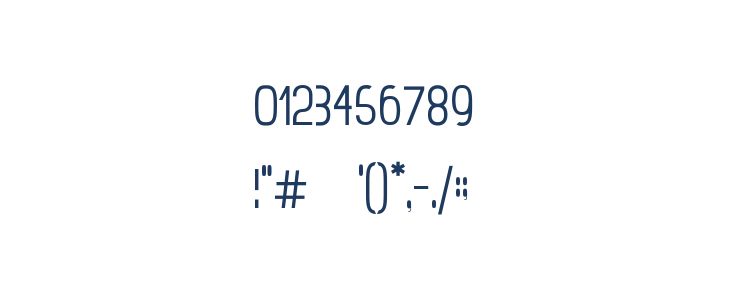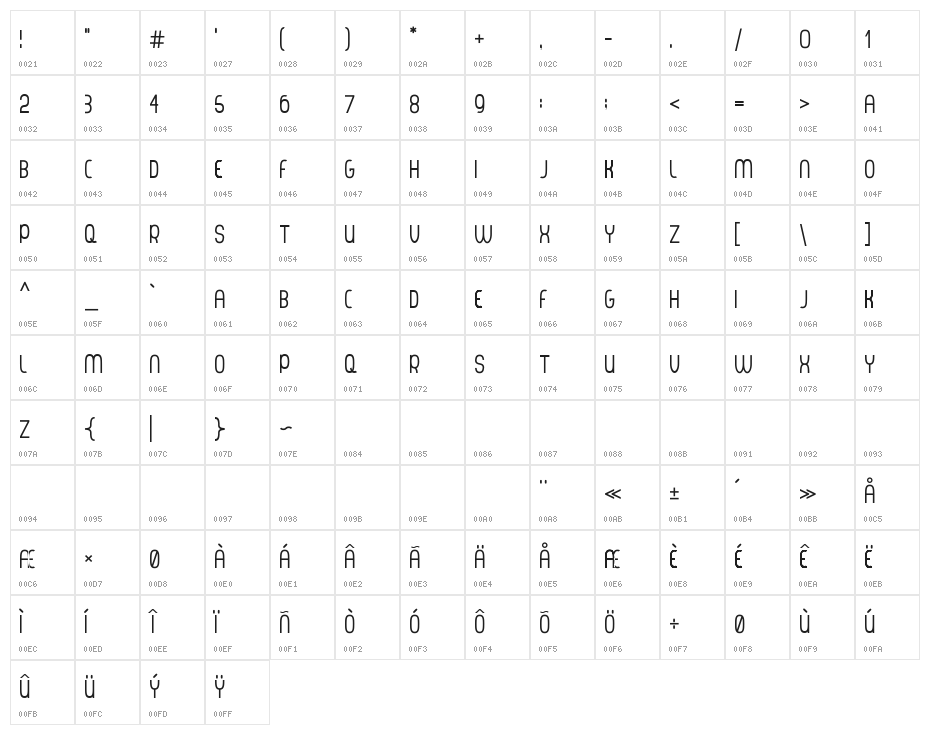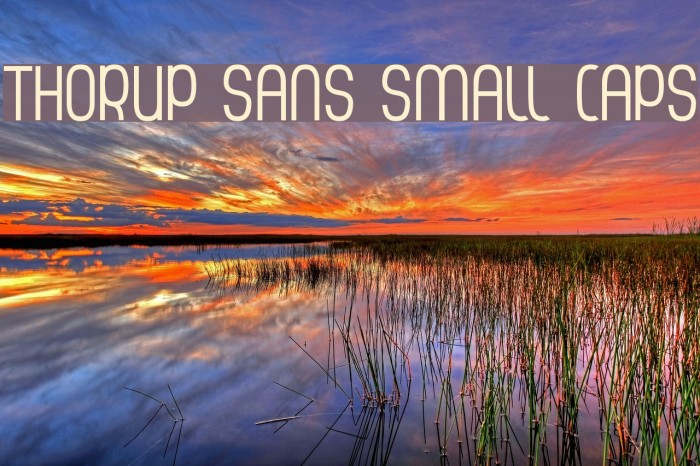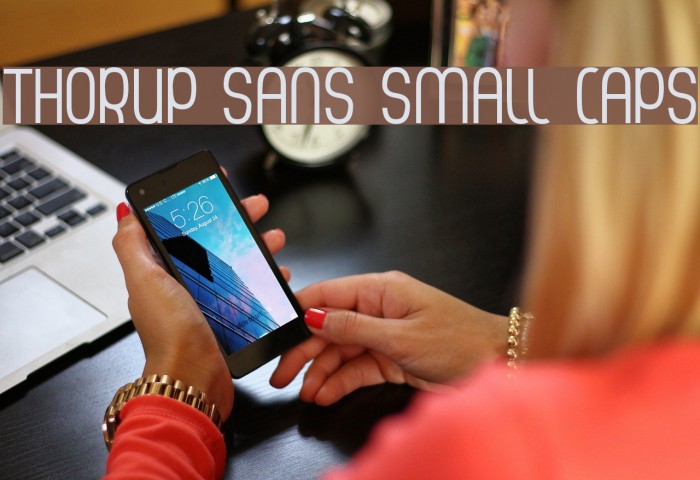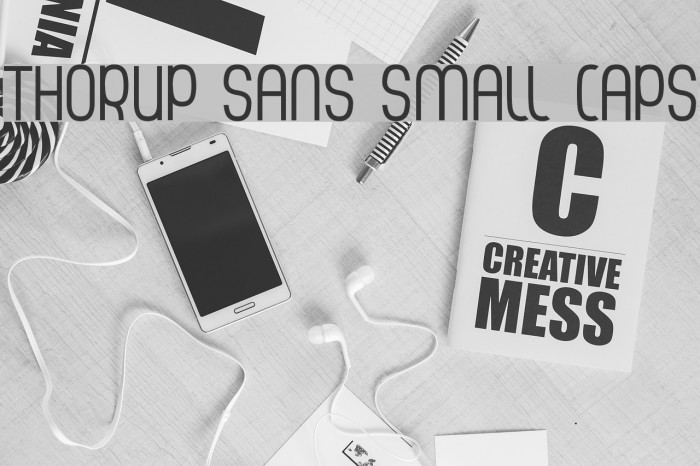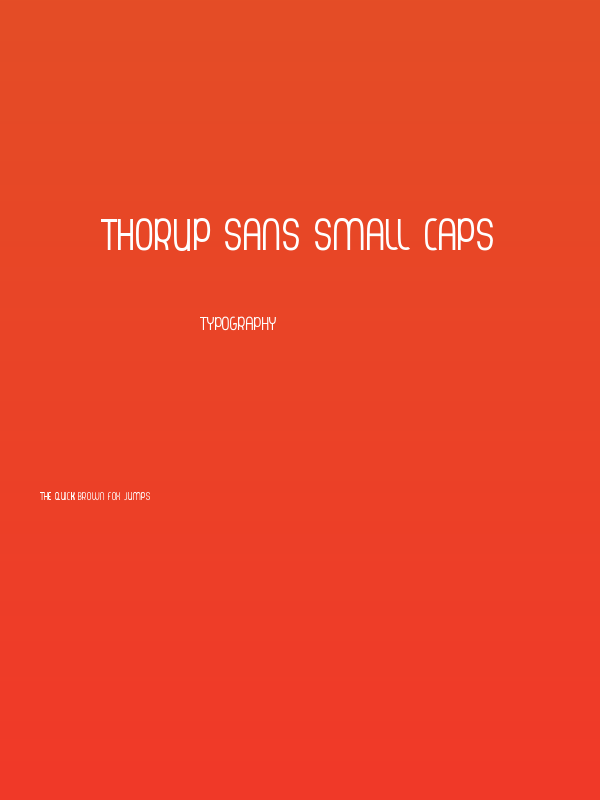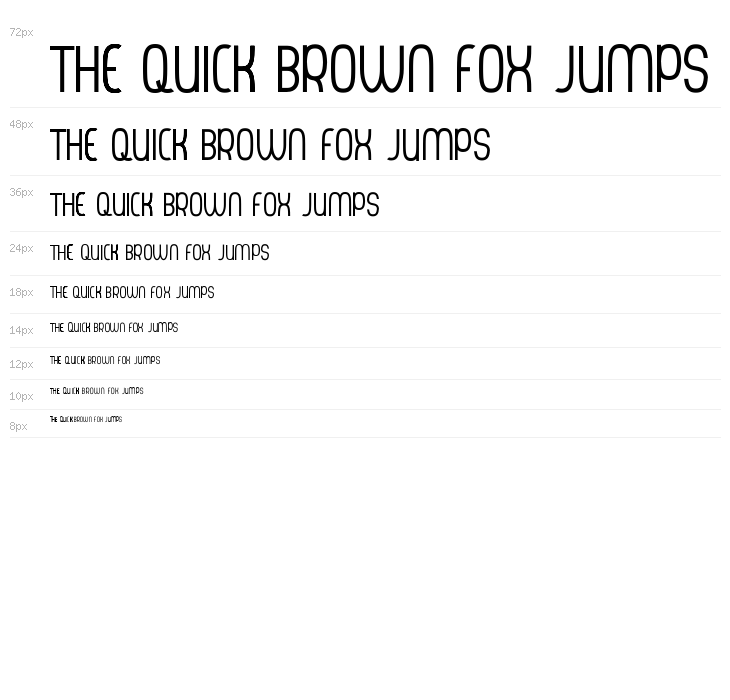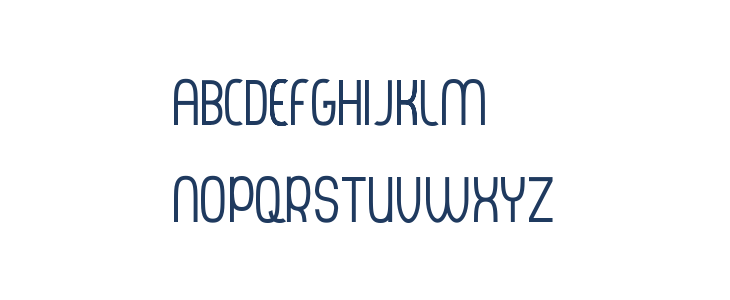
Thorup Sans Small Caps Font
Thorup Sans Small Caps Description
This font features a clean and modern sans-serif style with a focus on readability and simplicity. The characters are uniformly structured, with a consistent stroke width that gives a balanced and harmonious appearance. The uppercase and lowercase letters are designed with a similar height, creating a cohesive look across the text. The numerals are clear and easy to distinguish, making them suitable for various applications. Special characters are well-integrated, maintaining the overall aesthetic of the font. The design is versatile, making it ideal for both digital and print media.
| Proposed Projects | Ideal for branding, web design, advertising, and editorial projects due to its clarity and modern appeal. |